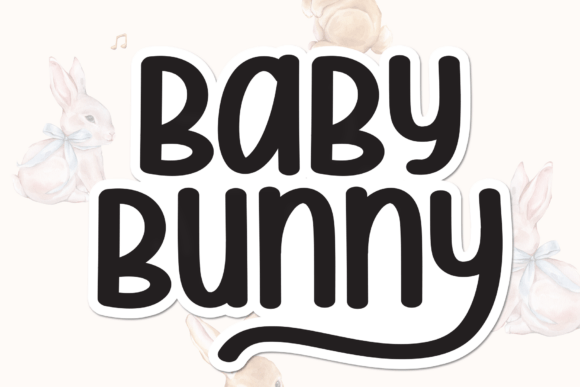
The Cutest Typography for Your Next Project: Baby Bunny Font
Who hasn’t been charmed by the adorable illustrations of baby bunnies in storybooks or nursery decor? As a designer, have you ever wanted to capture that same whimsical feel in your next project? You’re not alone. For those of us who love all things cute and cuddly, the perfect typography can make all the difference.
Enter the Baby Bunny Font, a soft and bold display font that’s sure to bring a smile to your face. Its rounded edges and chunky letterforms make it the perfect choice for baby products, nursery decor, and storybooks. As a designer, you’ll appreciate the versatility of this font, which can add a playful touch to anything from branding to packaging.
Baby Bunny Font Key Features
- Font Style: Hand-drawn, whimsical, and cute, making it perfect for children’s books, nursery decor, and other kid-friendly applications.
- Character Set: Includes uppercase and lowercase letters, numbers, punctuation marks, and special characters, ensuring comprehensive coverage for various design needs.
- Unique Characteristics: The font’s hand-drawn design features adorable bunny illustrations and playful details, making it a standout choice for designers seeking a distinctive and eye-catching font.
Baby Bunny Font Review
Overall, I have mixed feelings about the Baby Bunny Font. Here are my honest thoughts:
- The font’s playful and whimsical design is perfect for children’s books, nursery decor, or any project that needs a touch of innocence and charm.
- The font’s curves and rounded edges give it a soft, gentle feel that is visually appealing and easy on the eyes.
- The font’s open counters and generous spacing make it easy to read, even at smaller font sizes.
- The font’s limitations in terms of style and versatility make it less suitable for professional or formal projects.
- The font’s lack of sophistication and elegance may not appeal to designers looking for a more mature or sophisticated font.
- The font’s large size requirements may make it impractical for use in digital media, such as websites or social media graphics.
Overall, the Baby Bunny Font is a cute and charming font that excels in its niche but may not be the best choice for more complex or professional projects.
Use Baby Bunny Font for:
– Children’s book covers
– Nursery decor designs
– Baby shower invitations
– Kids’ party decorations
For optimal results, use the font in combination with pastel colors and whimsical illustrations. You can also experiment with different font sizes and styles to create visual interest.